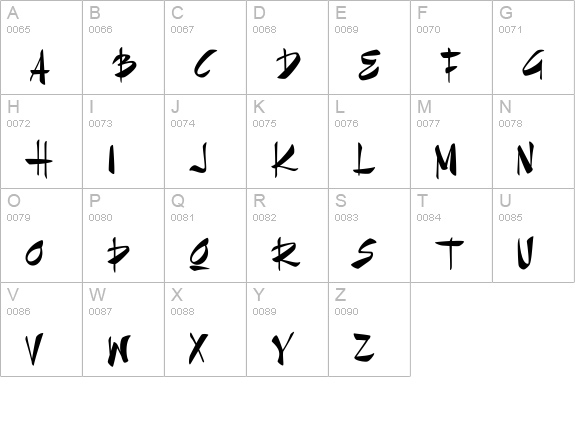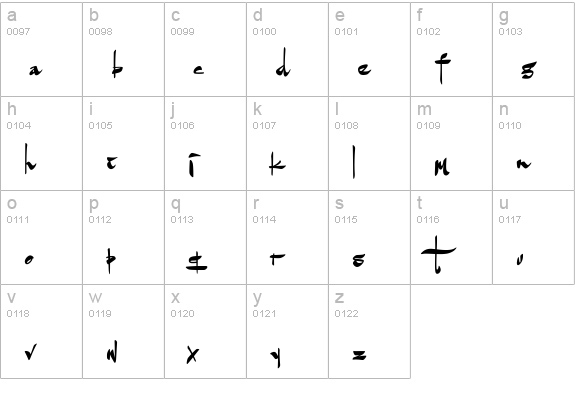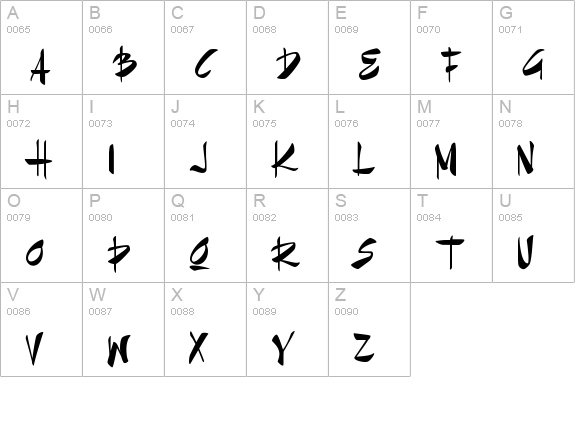
The Goatskin Brush Personal Use font is a stunning typeface that exudes a sense of artistic flair and rustic charm. With its hand-drawn brush strokes and unique letterforms, this font adds a touch of authenticity to any design project. Whether you're creating a poster, logo, or packaging design, the Goatskin Brush font will make your work stand out from the crowd. Its organic, irregular lines give it a raw and natural feel, perfect for conveying a sense of creativity and individuality. What's even better is that the Goatskin Brush Personal Use font is completely free! That's right, you can download this amazing font without spending a dime. It's freely available at FontsMarket.com, a trusted source for high-quality and diverse font options. So why wait? Add a touch of artistic brilliance to your next project with the Goatskin Brush Personal Use font. Download it for free today and let your creativity flow!